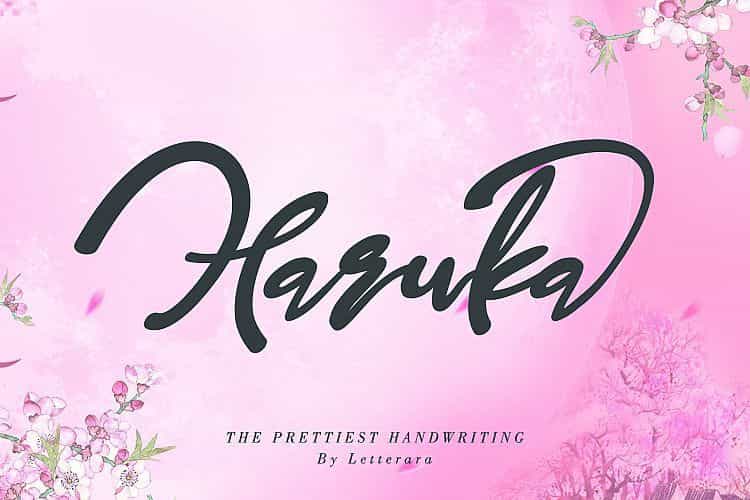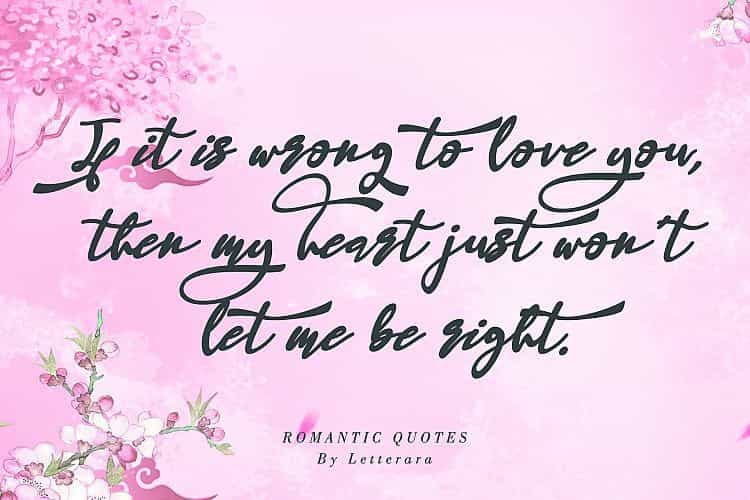
Haruka is a display typeface that has a bold and powerful feeling about it. Haruka is perfect for title designs, invitations, book titles, stationery, quotes, branding purposes, or even wedding related items and so on. and most importantly, Haruka is perfect for you.